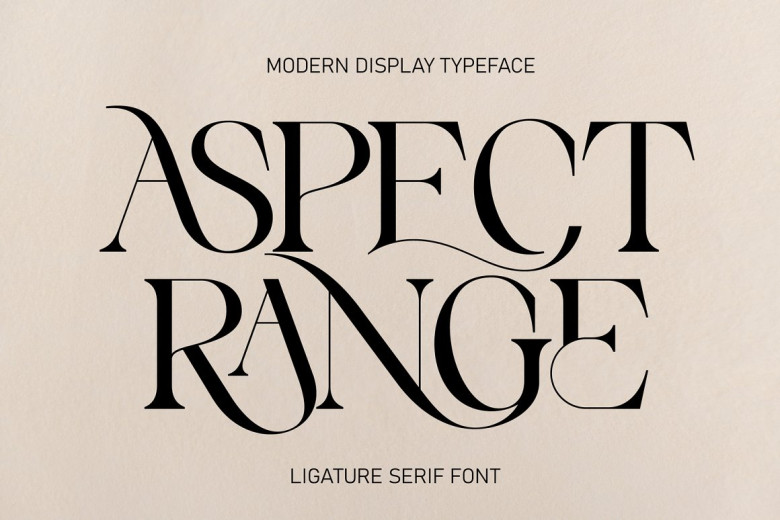
Aspect Range Font
Aspect range offers a classic yet modern serif font with its own special character. Elegant, luxurious and delicate; this font can be used for wedding invitations as well as web, magazine cover or any other design projects.
Aspect Range Serif Font